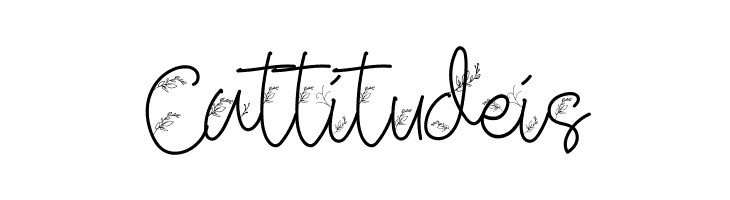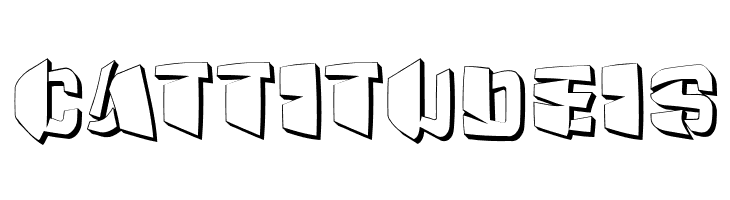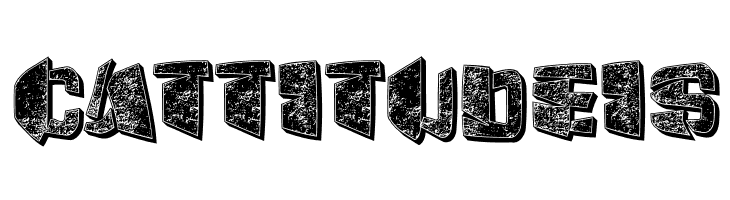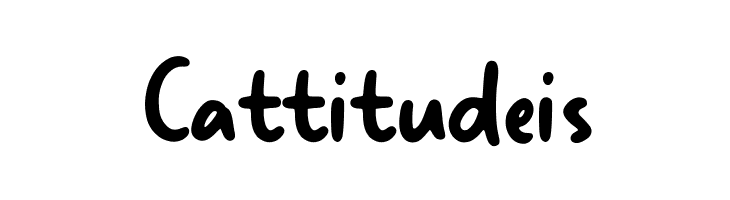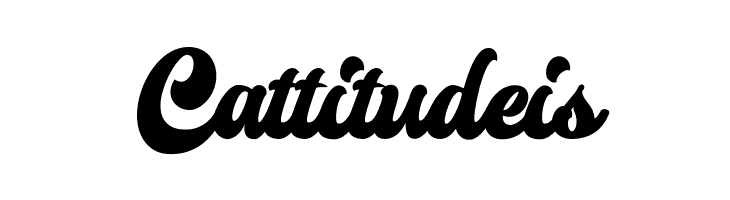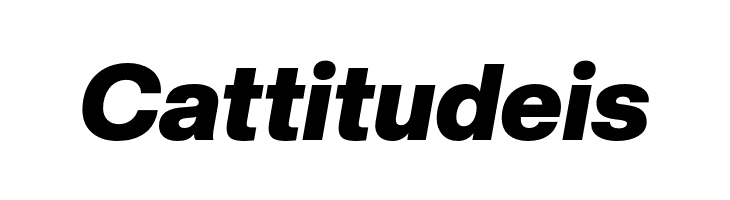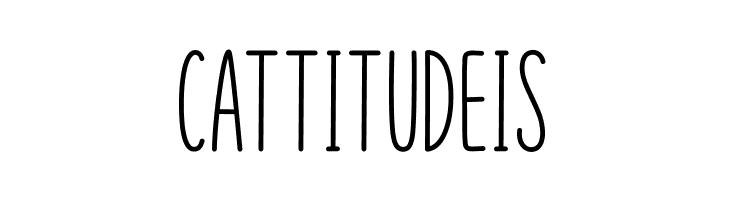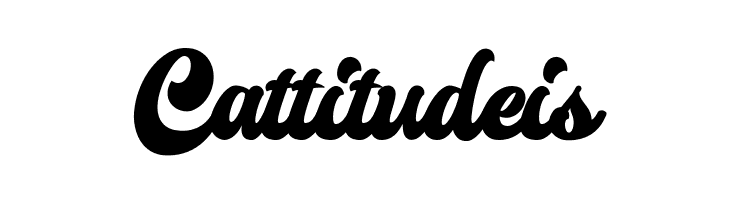
A playful, hand-drawn font with tall, narrow letters and a whimsical style.
A bold, 3D graffiti-style font with sharp, angular edges.
A bold, textured font with a distressed, splattered effect for a rugged, artistic look.
A bold, expressive script font with interconnected, flowing characters.
A bold, flowing script font with rounded strokes and connected letters.
A playful, casual handwritten font with rounded, smooth letterforms.
A whimsical handwritten font with leaf motifs integrated into each character.
A decorative handwritten font with leaf motifs integrated into each character.
A bold, modern font with thick strokes and strong presence.
A bold, italic font with a dynamic and modern style.